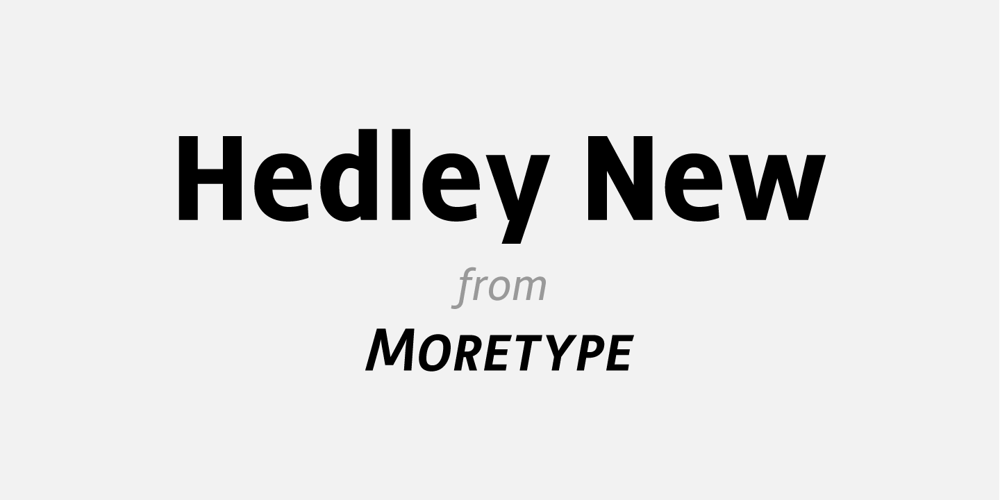
Hedley New
Hedley New font
Hedley New Font Family was designed by Chris Dickinson and published by moretype. Hedley New contains 8 styles and family package options. Hedley New is a reconstructed relative of Hedley, originally released in 2004. Building on its clean, original, simple charm, Hedley New has grown to be an elegant, clean, usable sans. Having been completely re-drawn, with new spacing and kerning, Hedley New is now an Opentype font containing small caps, tabular, proportional and old style numerals and ligatures.